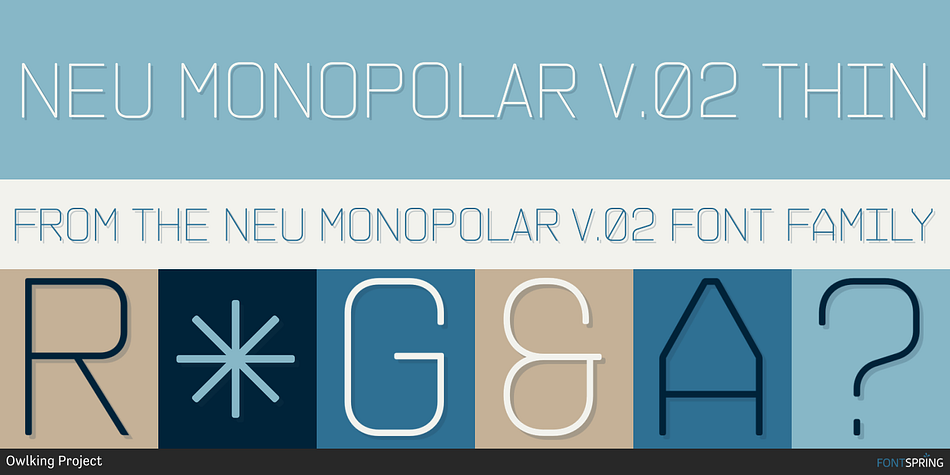
NEU MONOPOLAR V.02 Thin
NEU MONOPOLAR V.02 is a sans serif font family. This typeface has twenty styles and was published by Owlking Project.
NEU MONOPOLAR V.02
NEU MONOPOLAR V.02 is designed a little more smoothly, with perfectly curved edges, in this version the NEU MONOPOLAR V.02 looks more relaxed in shape and even more beautiful if rearranged in short paragraphs.
Still designed in a mono uppercase font style, with 20 styles including italics. NEU MONOPOLAR V.02, in addition to text headers, also works well for body text. Hopefully NEU MONOPOLAR V.02 further complements the style choices and provides a wider exploration of fonts with a futuristic style.